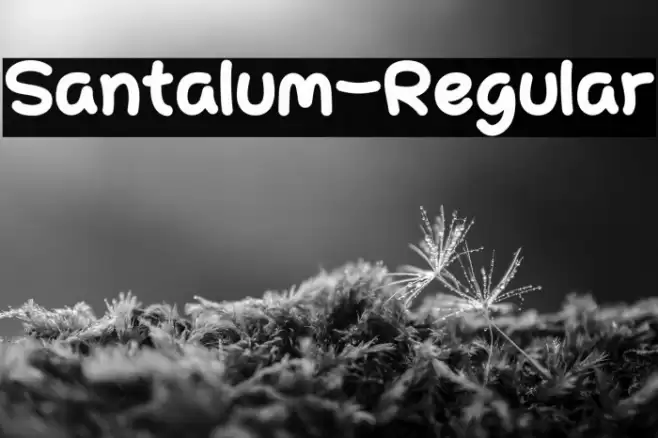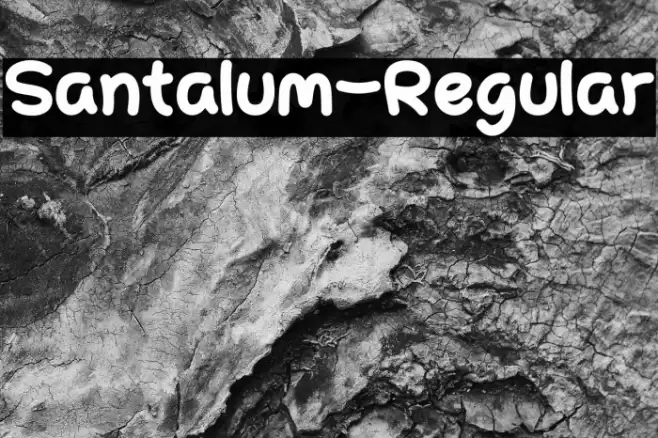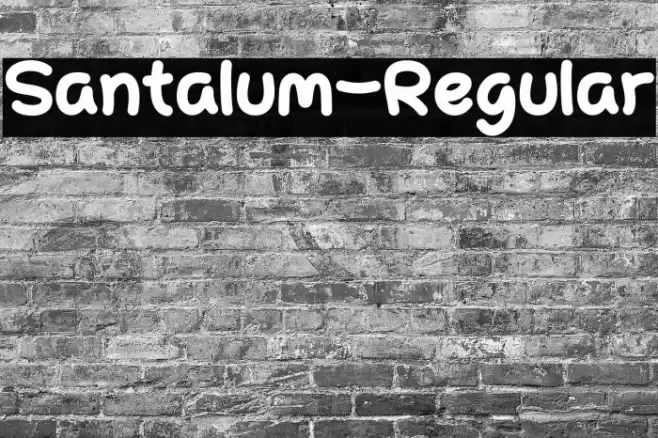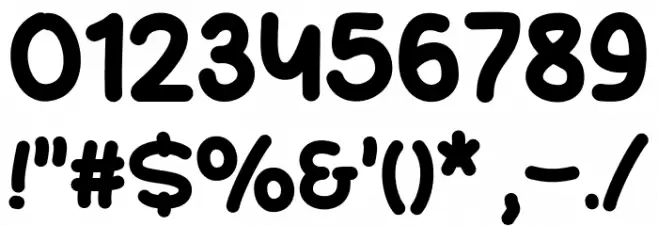
Santalum-Regular Font
Santalum-Regular Description
This font features a playful and rounded design, characterized by its bold and smooth curves. The letters are uniformly thick, giving it a friendly and approachable appearance. The uppercase and lowercase letters maintain a consistent style, with rounded edges and a slightly informal touch. The numbers and special characters follow the same design principles, ensuring a cohesive look across all glyphs. This font's style is reminiscent of handwritten text, yet it maintains a clean and polished finish, making it versatile for various design needs.
A playful, rounded font with bold, smooth curves and a friendly appearance from Regular fonts.
- Proposed Projects: Ideal for children's books, playful branding, casual invitations, and social media graphics.
- Overall Style: Playful
- Use Case: Headlines, Logos, Informal Text